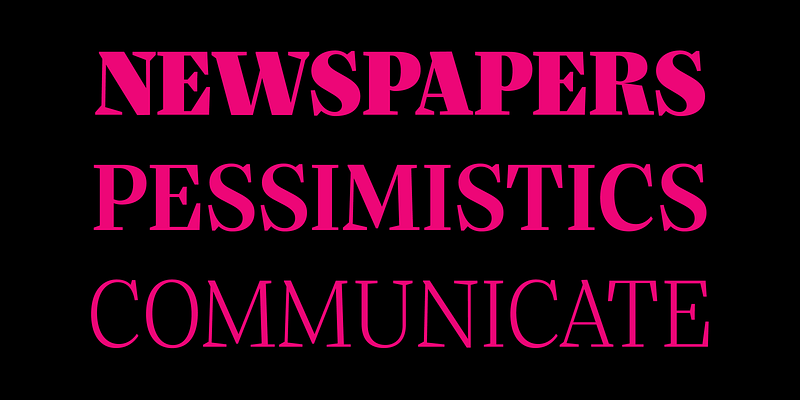
Silva Display Font Free Download is a sophisticated and modern serif typeface designed for high-impact display use. Its elegant letterforms and carefully crafted details make it perfect for branding, posters, headlines, logos, and any project that demands a refined, stylish presence.
Silva Display Font works beautifully for large-scale text, offering strong visual appeal and excellent readability in display settings. It integrates seamlessly with design tools like Adobe Illustrator, Photoshop, Figma, and Canva, making it easy to use for both print and digital designs.